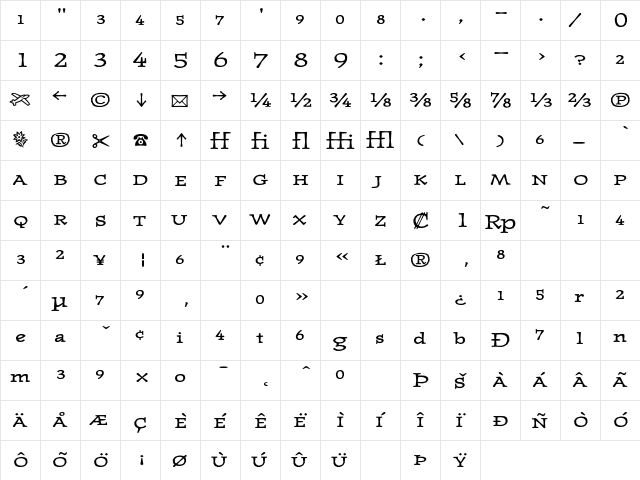
JournalFractions-Ultra Ultra Font Preview
JournalFractions-Ultra Ultra
Design Context for JournalFractions-Ultra Typeface
JournalFractions-Ultra offers clean, dependable letterforms without strong stylistic allegiance, making it a practical choice for designers who need flexibility.